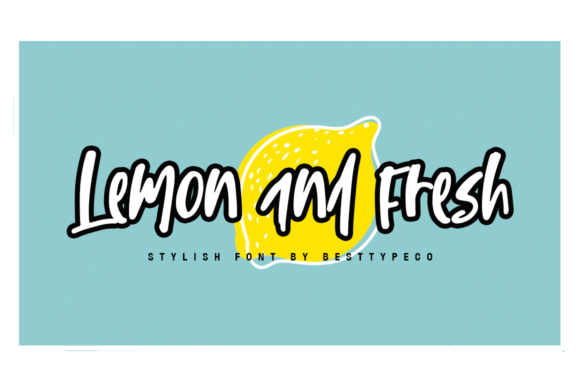
Say hello to Lemon and Fresh, the captivating script font family that exudes personality and flair! Designed by the talented BennyDesigns, this font is a juicy burst of creativity that will transform your design endeavors into masterpieces.
With its casual and playful nature, Lemon and Fresh effortlessly lends a touch of whimsy and individuality to any project. Its unique and charming characters dance across the page, inviting your readers to embark on a journey of imagination and delight.
Visualize your designs blooming with vibrancy and style as you incorporate Lemon and Fresh into your creations. Logos, branding materials, social media posts, and even handwritten notes will come alive with an irresistible charm that sets them apart from the ordinary.
Lemon and Fresh is not merely a font; it's an experience. It's a chance to express your creativity and leave a lasting impression on your audience. Its versatility extends far beyond personal projects; it's the perfect choice for businesses looking to establish a strong and memorable brand identity.
Whether you're a seasoned designer or just starting out, Lemon and Fresh is the font that will unlock your creative potential. Its user-friendly nature makes it accessible to all, while its exceptional quality ensures professional-looking results every time.
Join the creative revolution and embrace the playful spirit of Lemon and Fresh. Dare to be different, to stand out, and to make a statement with every design you create. Unleash your imagination and let the world bask in the beauty of your creations, brought to life by the magic of Lemon and Fresh.